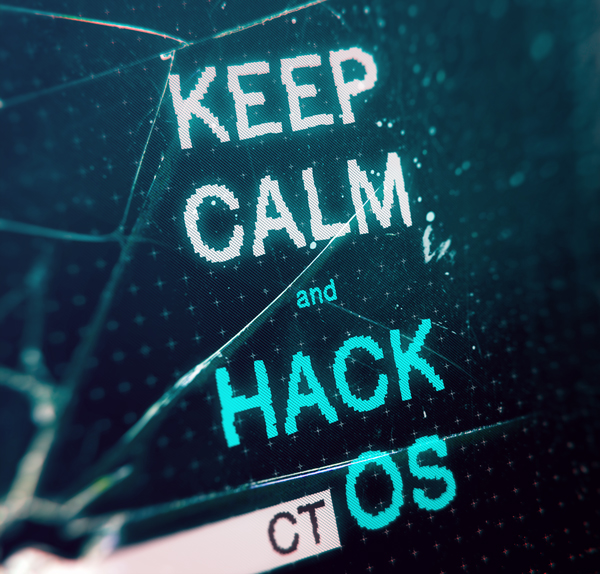
Here is a blocky font. I hope you enjoy it! I was inspired by the game "Watch_Dogs" for this font. It's a good font to use for technological themes. This font is free for a personal use only. If you need the version with accents and special characters, please contact me ! And if you like it, don't hesitate to congratulate my work by making a donation via the link under the download button! Thanks ! --- Voici une police avec un aspect "blocky". J'ai été inspiré par le jeu "Watch_Dogs" pour cette police. C'est une bonne typo à utiliser pour les thèmes en rapport avec la technologie. Si vous avez besoin des accents et caractères spéciaux, contactez moi ! Cette typo est disponible ici pour un usage personnel uniquement. Si vous comptez l'utiliser de manière commerciale, veuillez me contacter. J'espère qu'elle vous plaira ! Et si c'est le cas, n'hésitez pas à féliciter mon travail en faisant un don via le lien situé sous le bouton de téléchargement ! Merci ! |